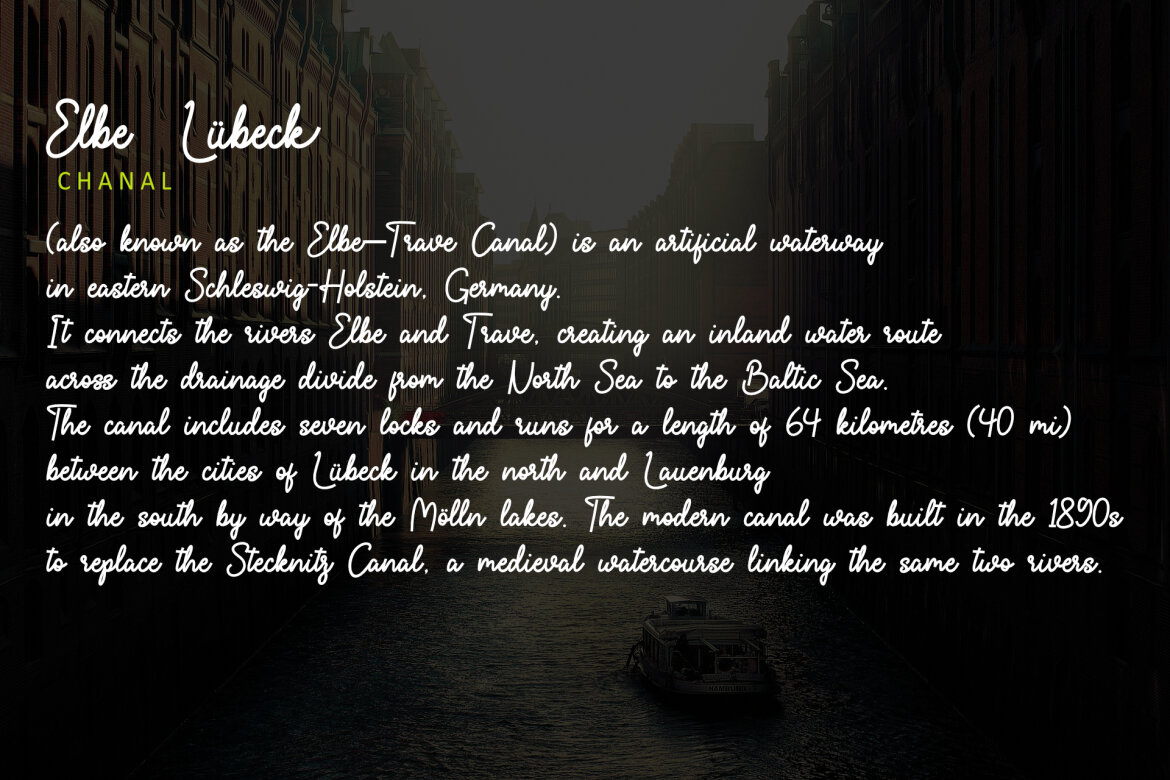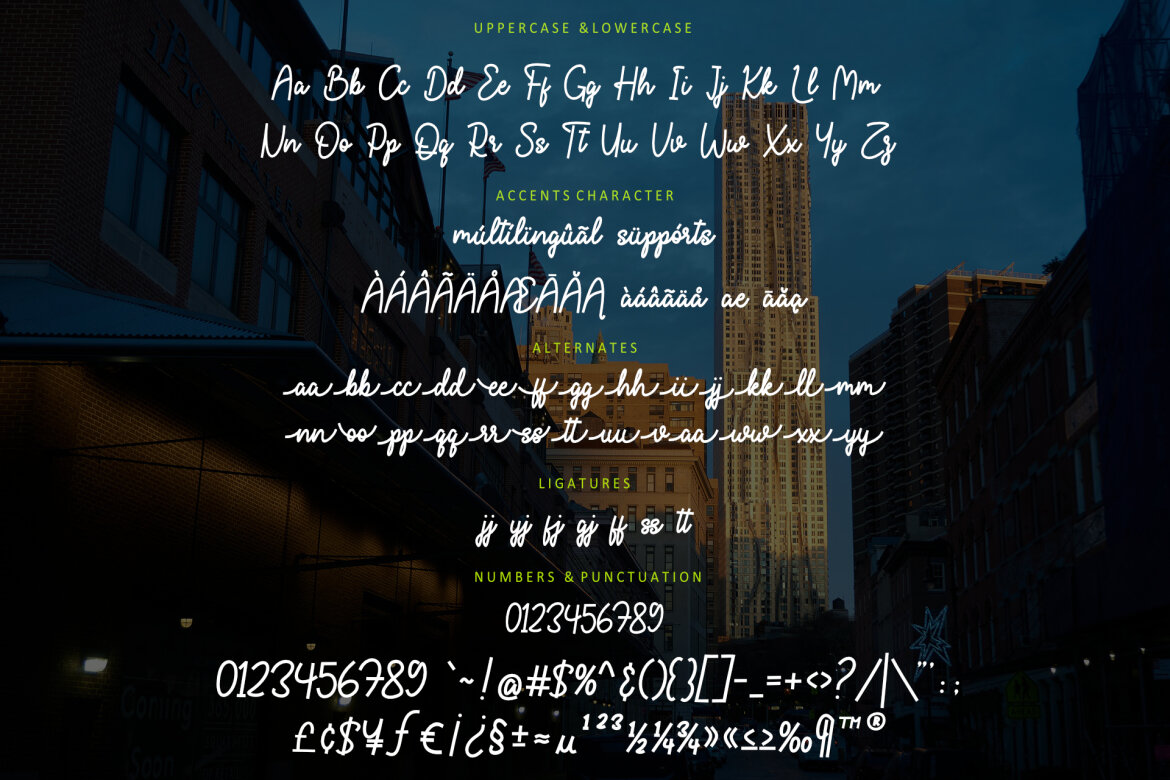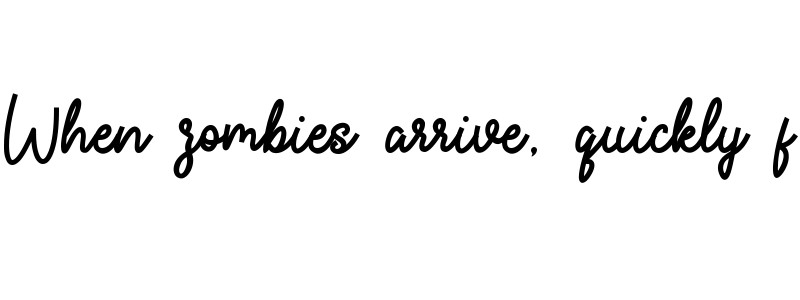
Brancaster
Brancaster is a bold script font with rounded lines and a beautiful flow from one letter to the next. It is the best choice for creating eye catching logos, branding and quotes. Every letter has a unique and beautiful touch, which will make your design come alive!